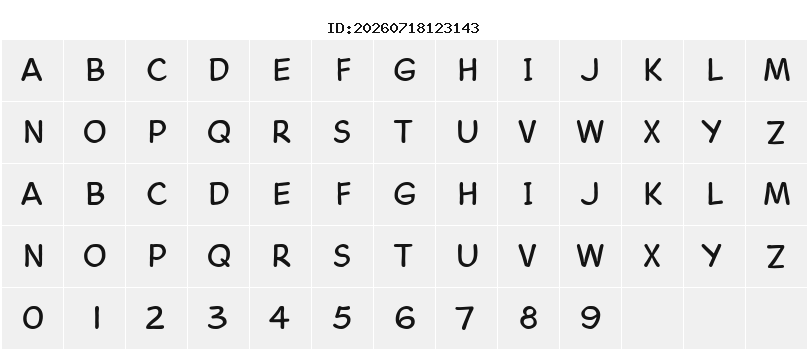
Cartoon Script Preview
• Font Name: Cartoon Script
• Full Font Name: Cartoon Script
About Cartoon Script.ttf
Cartoon Script.ttf is a modern, elegant sans-serif font designed for ultimate readability and visual harmony. Perfect for branding, headlines, web design, and print materials.